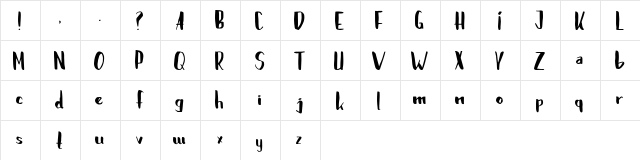
Brushylicious Regular
| Foundry | Pollux of Geminorum Type Foundry |
| Designer | Suke Toejoeh |
Design Context for Brushylicious Typeface
Brushylicious brings a calligraphic fluidity to the page — its connecting strokes and expressive curves give it an unmistakably human quality.
Font Pairing: Combine Brushylicious with a simple geometric sans for maximum contrast — the tension between flowing curves and clean structure is a classic typographic pairing.
Pro Tip: Pair Brushylicious with a clean sans-serif for supporting text. The contrast between fluid script and geometric structure creates an elegant typographic hierarchy.